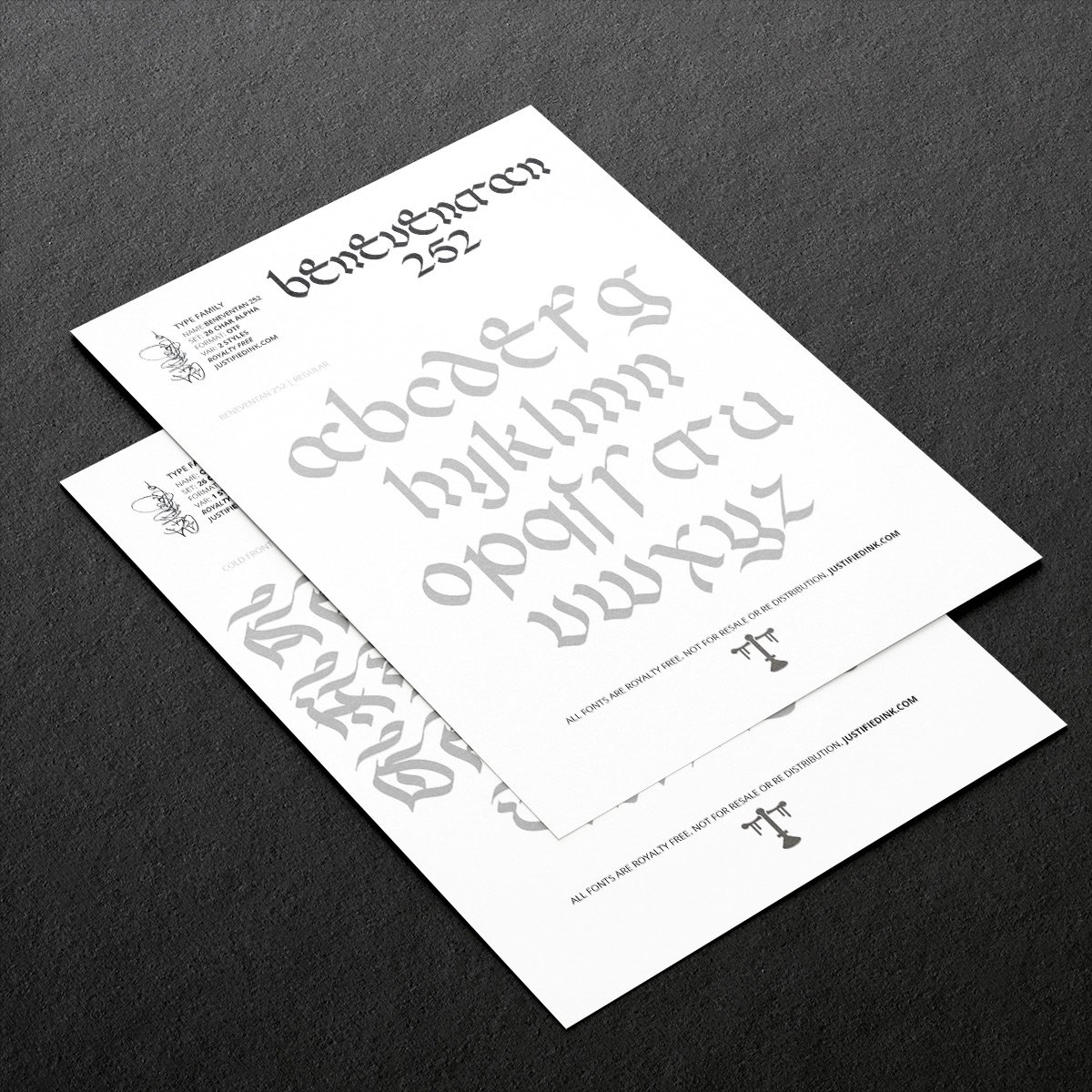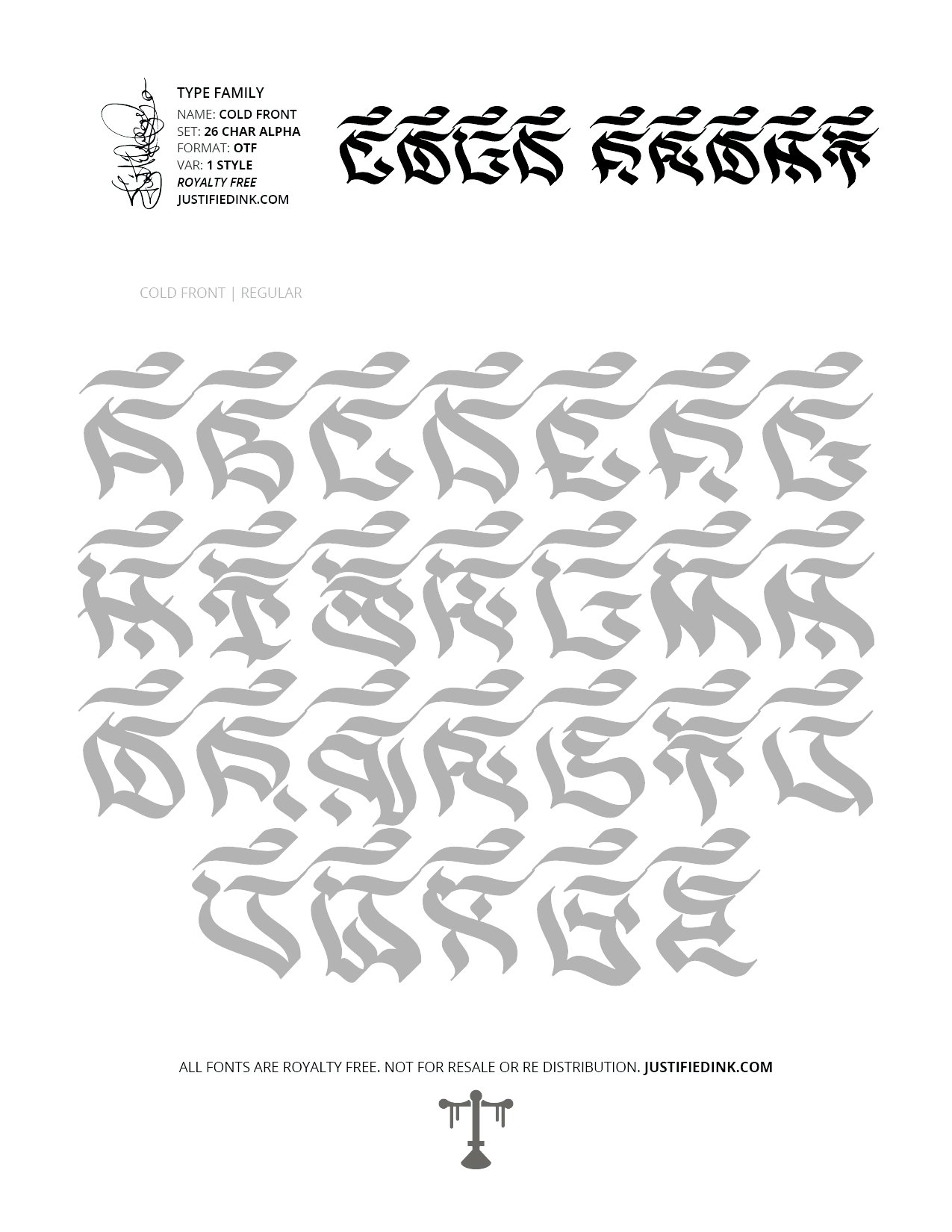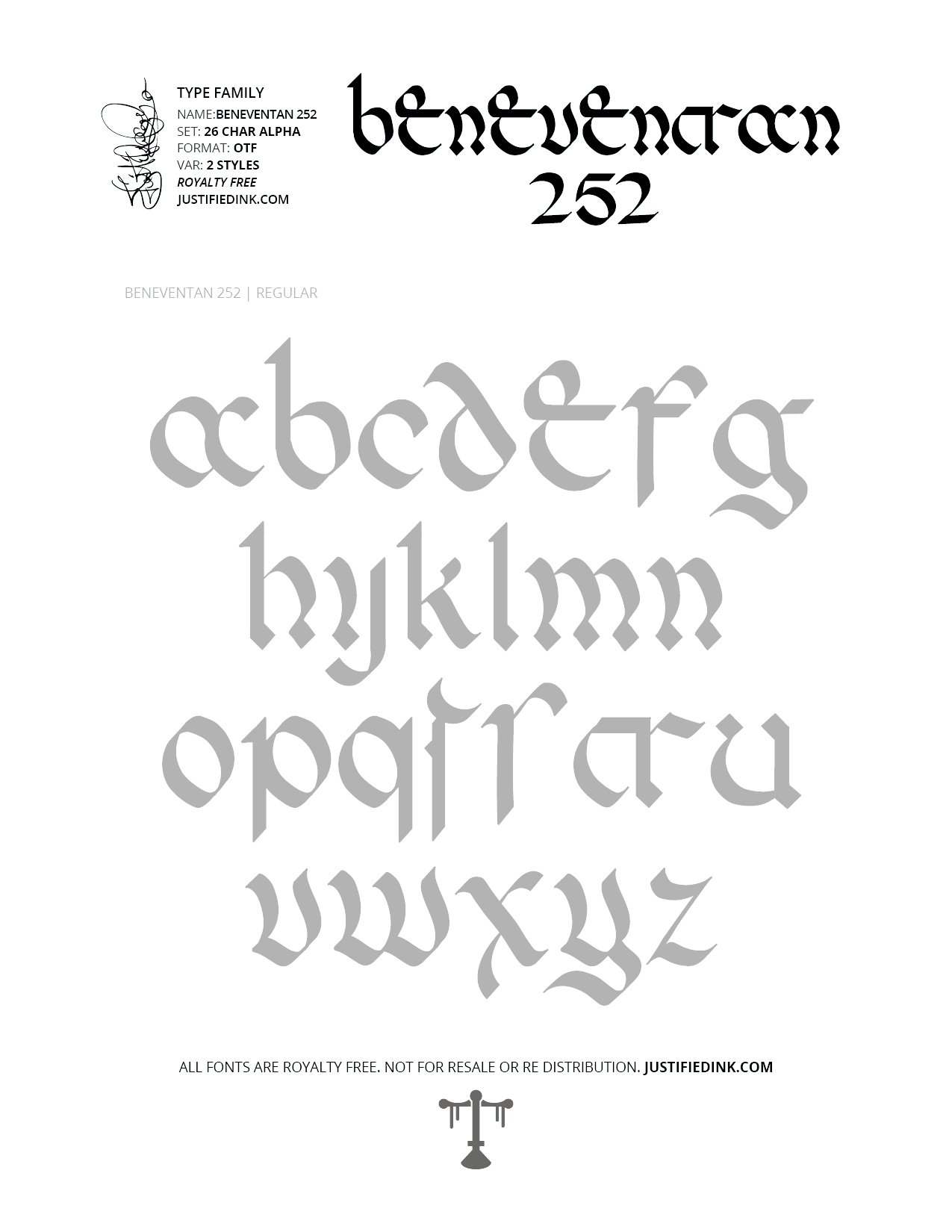
Blackletter III Font Practice Sheets (Digital Download)
Blackletter III Practice Sheets
Digital Download — 42 Printable Sheets + Free Blackletter III PDF
Sharpen your hand. Own the stroke.
The Blackletter III Practice Sheets are a modern rite of passage—42 high-impact templates pulled from 30 handcrafted fonts, each rooted in tradition and tuned for now. This isn’t homework—it’s weapons training for the calligraphic elite.
Print them. Trace them. Push your style forward with precision-built guides based on Gothic, Fraktur, Beneventan, Uncial, and more—fused with graffiti and hip-hop edge.
Perfect for those who seek mastery in blackletter calligraphy, tattoo lettering, apparel design, and atmospheric artwork.**
Blackletter III is a signature collection by Justified Ink. After more than 15 years of creative exploration, I turned my focus to building a curated library of handmade fonts. Blackletter III showcases 30 distinct fonts, each crafted with precision and rooted in a blend of classic calligraphic styles like Gothic, Fraktur, Beneventan, and Uncial. Inspired by digital design, this collection also draws on modern influences, including graffiti, hip-hop, and indie aesthetics. Every font includes a complete 26-character alphabet, with variations and additional non-alphabetic characters to suit a wide range of creative applications.
No fluff. Just forms worth mastering.
Step into the archive and train like you mean it.